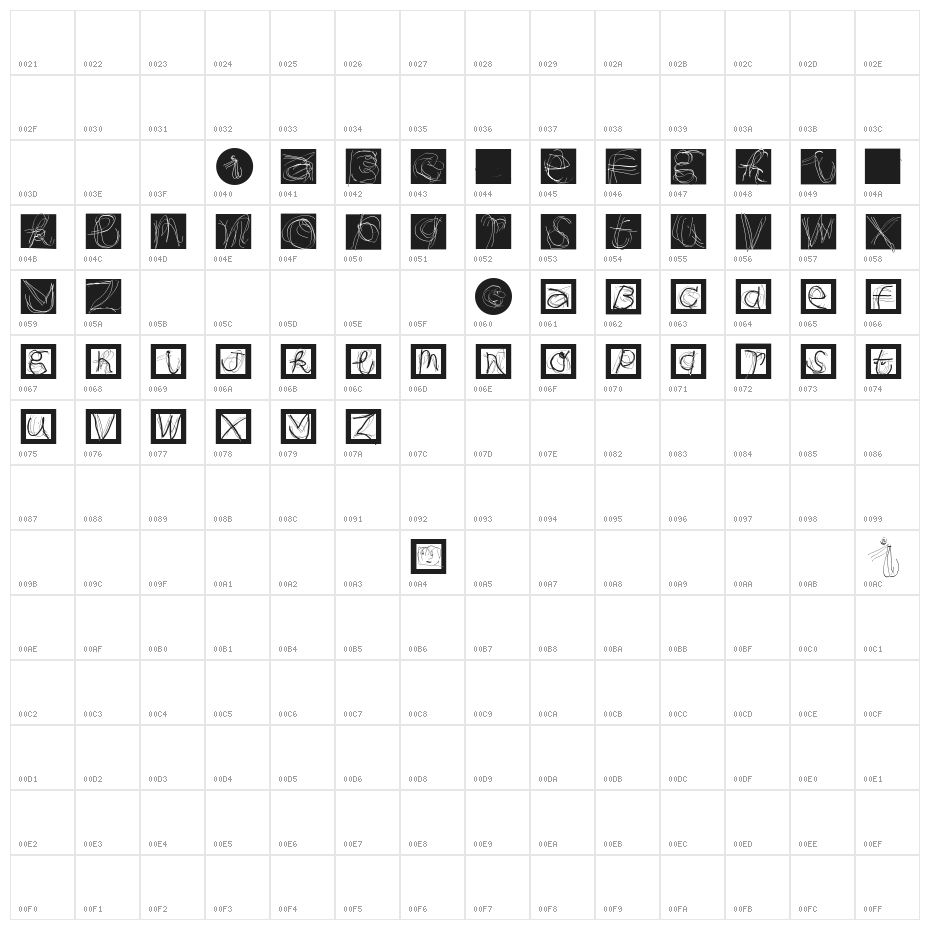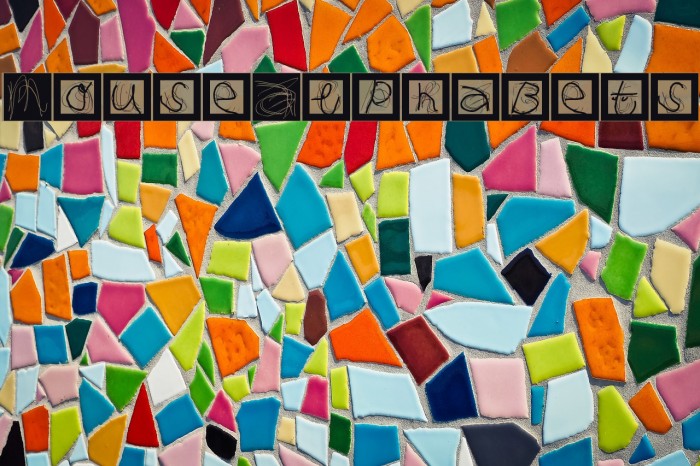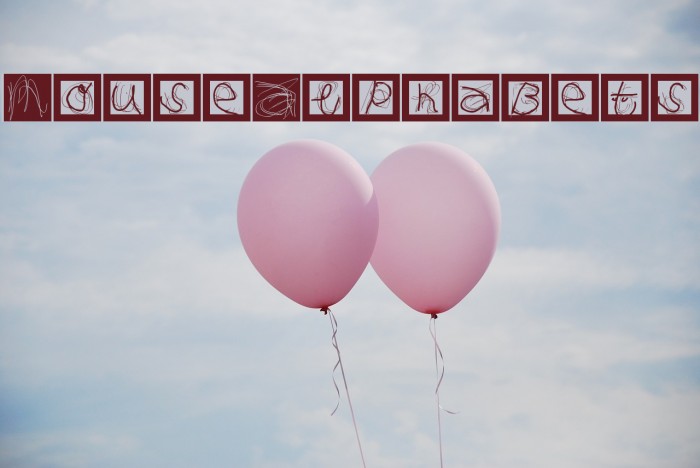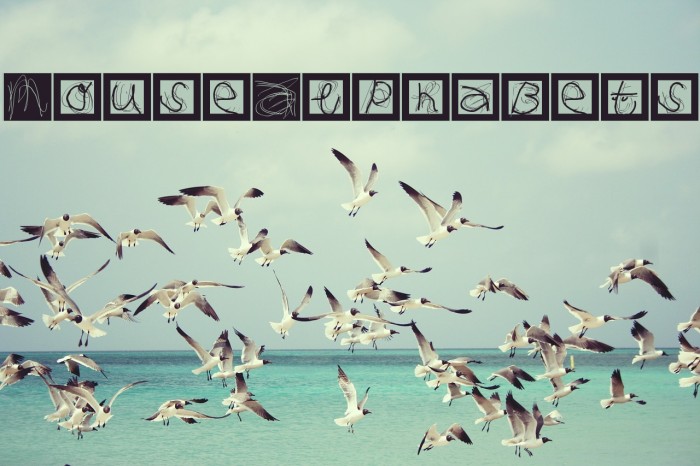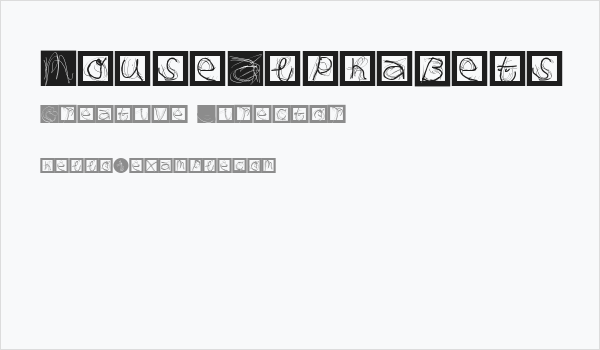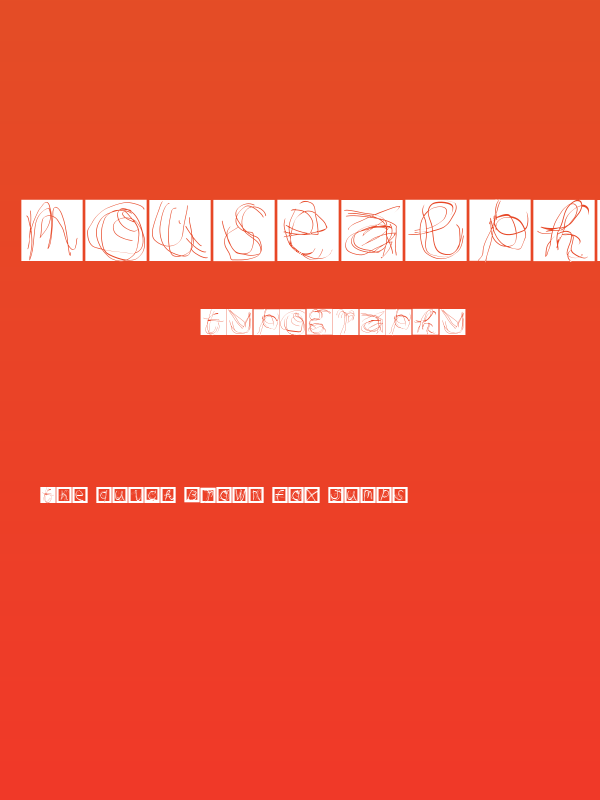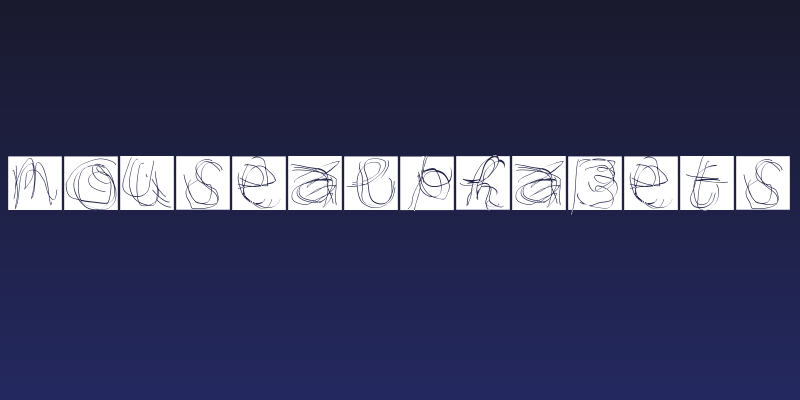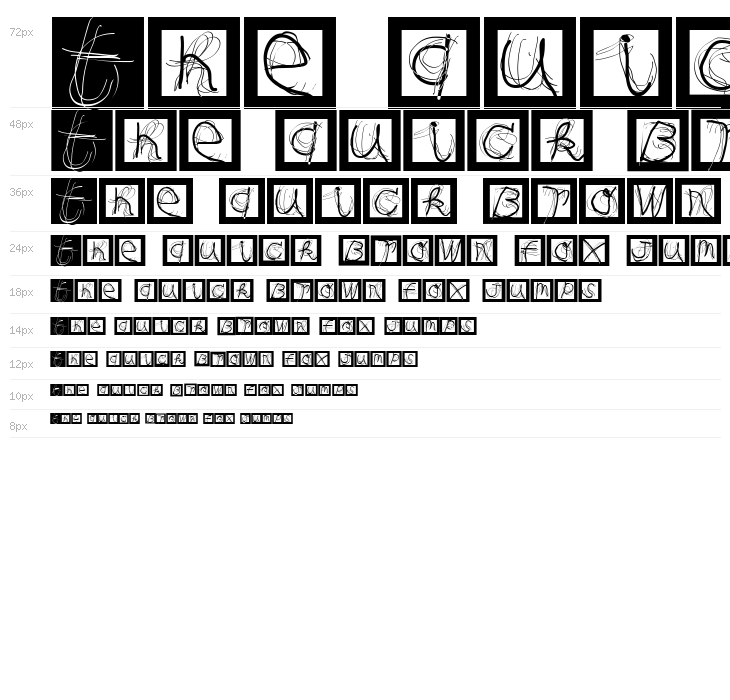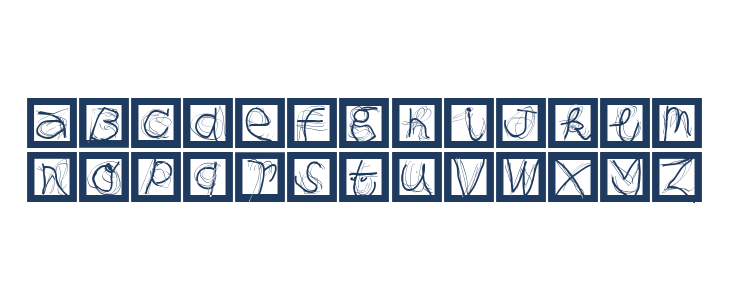
MouseAlphabets Font
MouseAlphabets Description
This font features a whimsical and playful design, with each character crafted to resemble a mouse's tail or whiskers. The strokes are thin and delicate, creating a sense of movement and fluidity. The letters are enclosed in square frames, adding a structured contrast to the otherwise freeform style. The uppercase and lowercase letters maintain a consistent theme, with the uppercase being slightly more pronounced. The numbers and special characters follow the same playful aesthetic, making the font suitable for creative and informal projects.
| Overall Style | Playful, Whimsical |
| Use Case | Logos, Creative projects, Informal text |
| Proposed Projects | Ideal for children's books, playful branding, greeting cards, and creative invitations. |